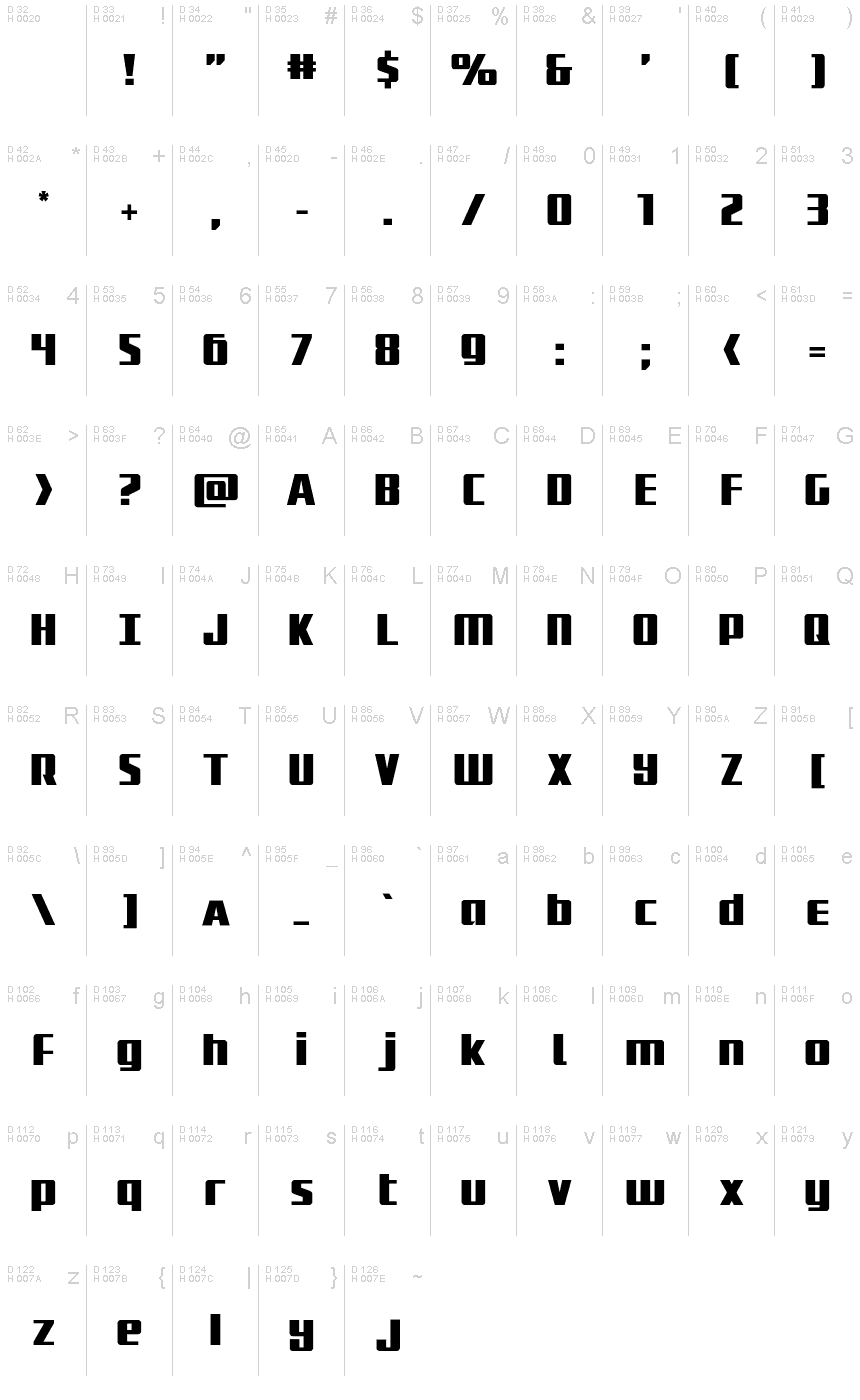
Subadai Baan Compact
The Subadai Baan Compact font, designed by Daniel Zadorozny, is perfect for projects that require a bold, techno-inspired display font. Its sleek design and compact width make it versatile for use in a variety of creative projects, such as futuristic movie posters or edgy tech company logos. With its bold weight and sharp angles, the Subadai Baan Compact font demands attention and adds a touch of modernity to any project. Whether you're looking to add an innovative edge to your branding or want to create visually engaging graphics, the Subadai Baan Compact font is sure to impress.